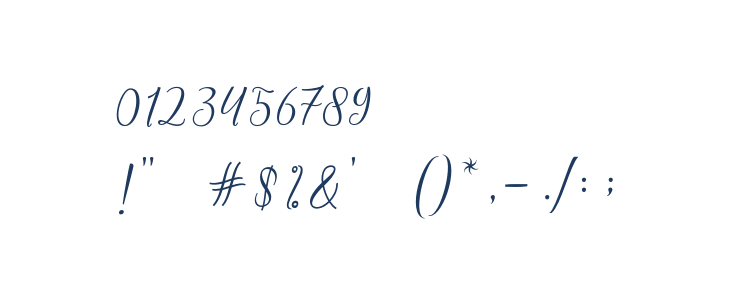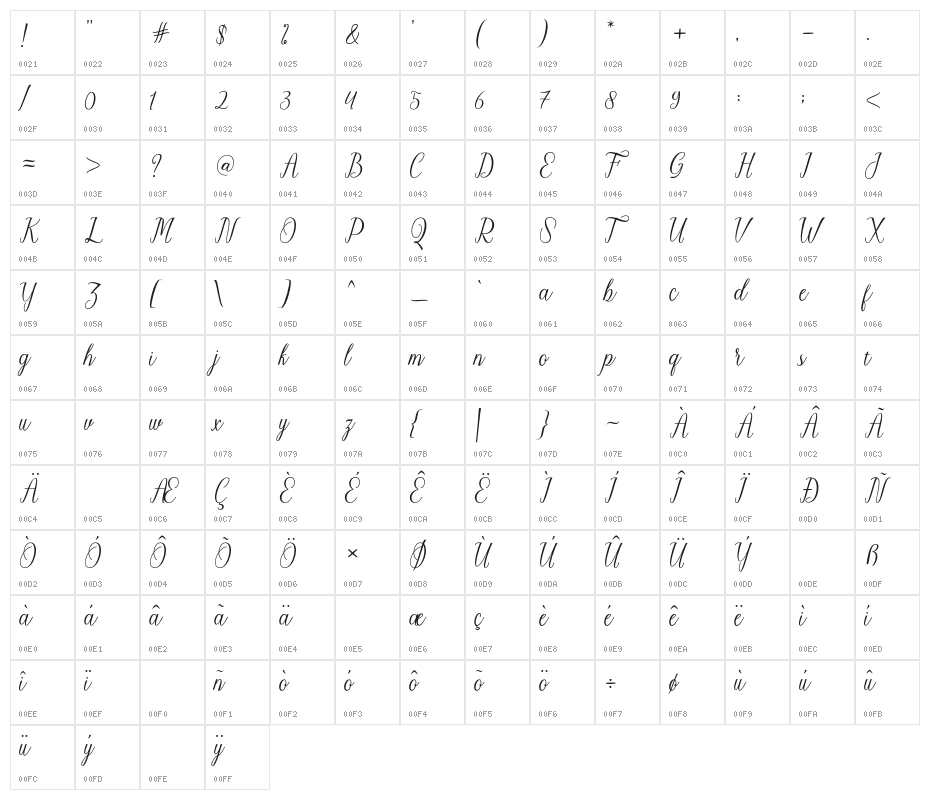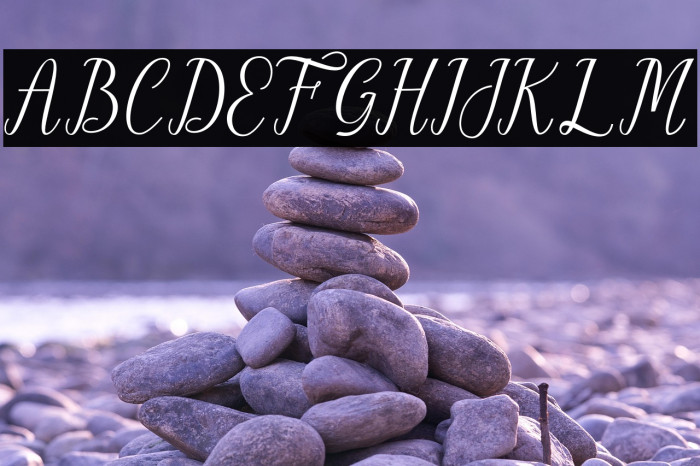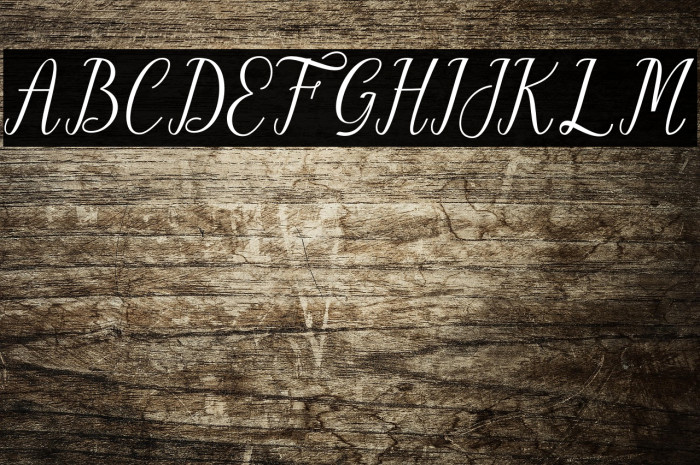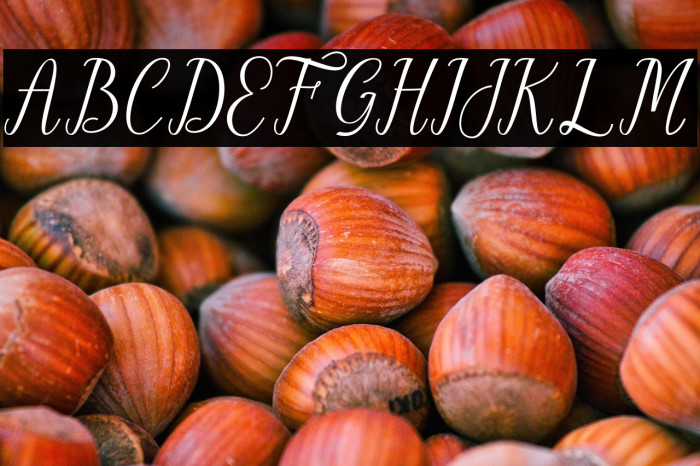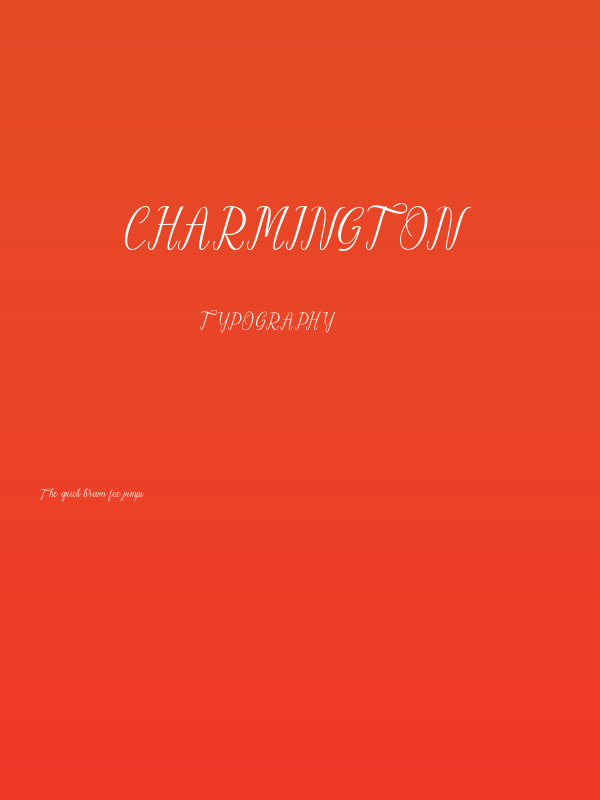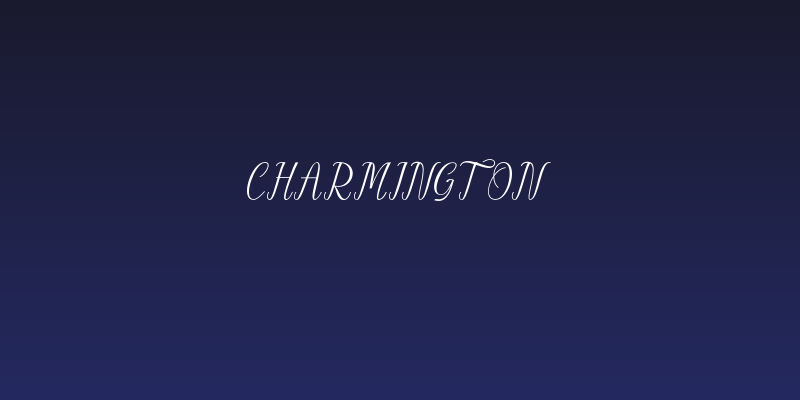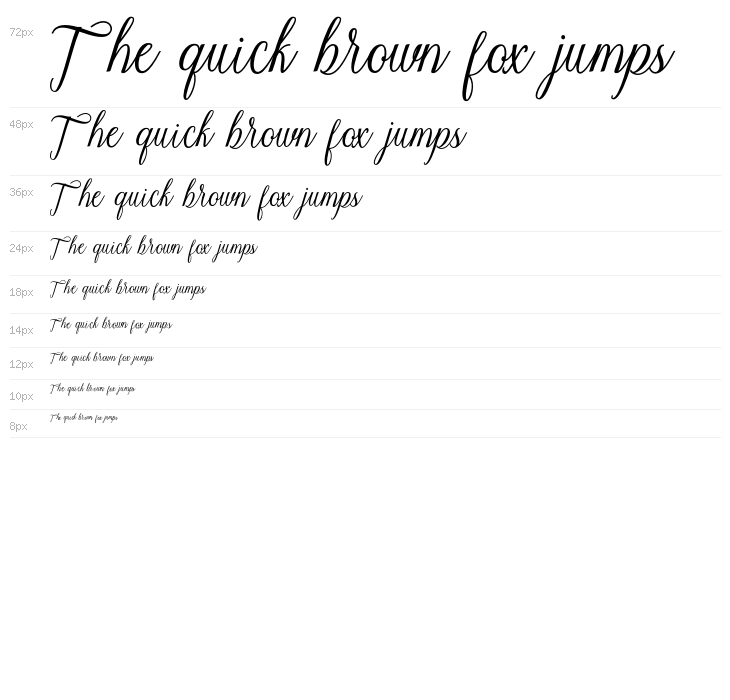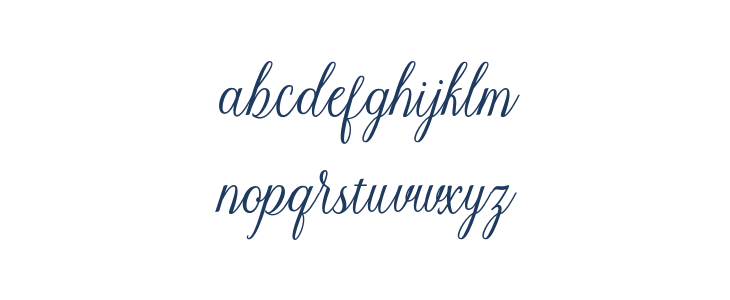
Charmington Font
Charmington Description
This elegant script font features a flowing, cursive style with smooth, continuous strokes that create a sense of fluidity and grace. The uppercase letters are tall and slightly narrow, with distinctive loops and swirls that add a touch of sophistication. The lowercase letters maintain a consistent slant, enhancing the font's overall harmony and rhythm. Numbers and special characters are designed to complement the alphabet, with similar curves and flourishes. This font exudes a classic charm, making it suitable for a variety of formal and decorative applications.